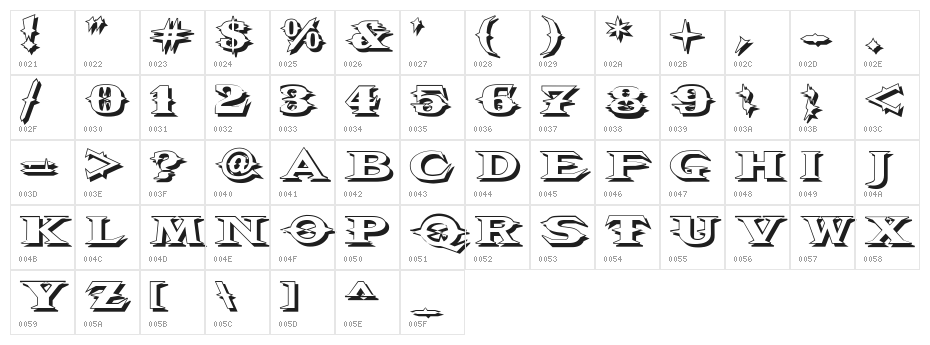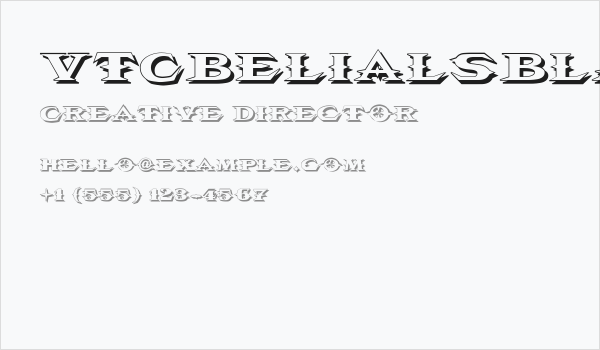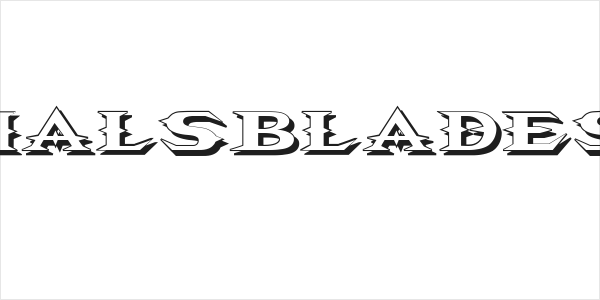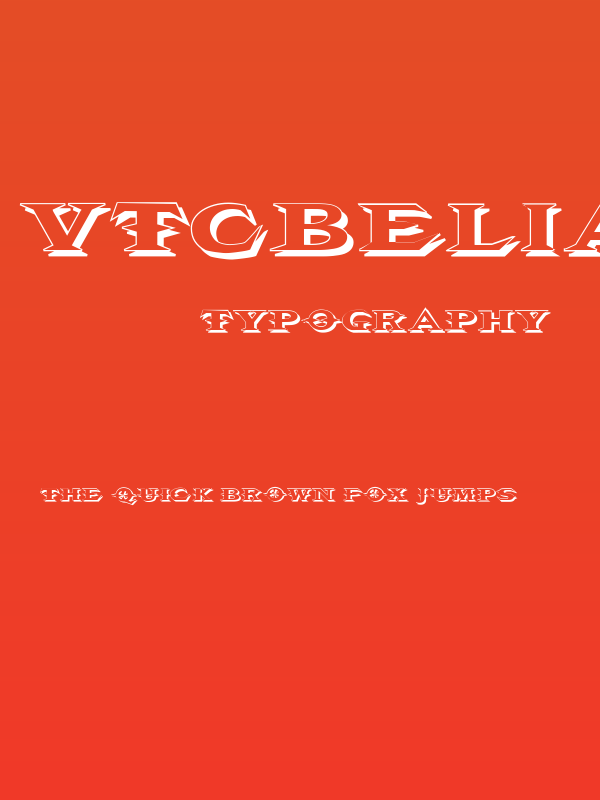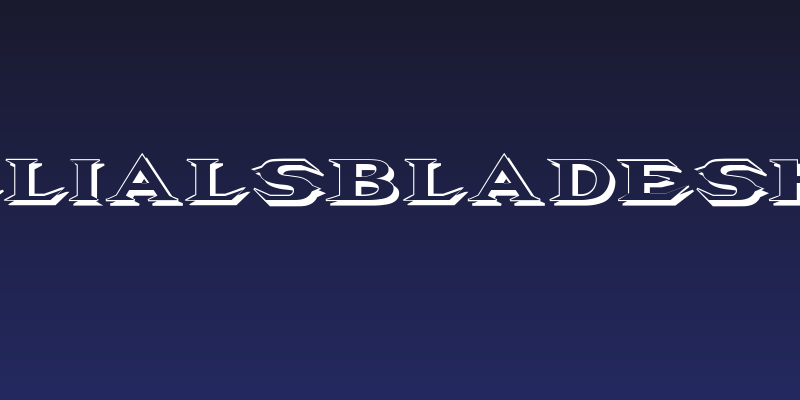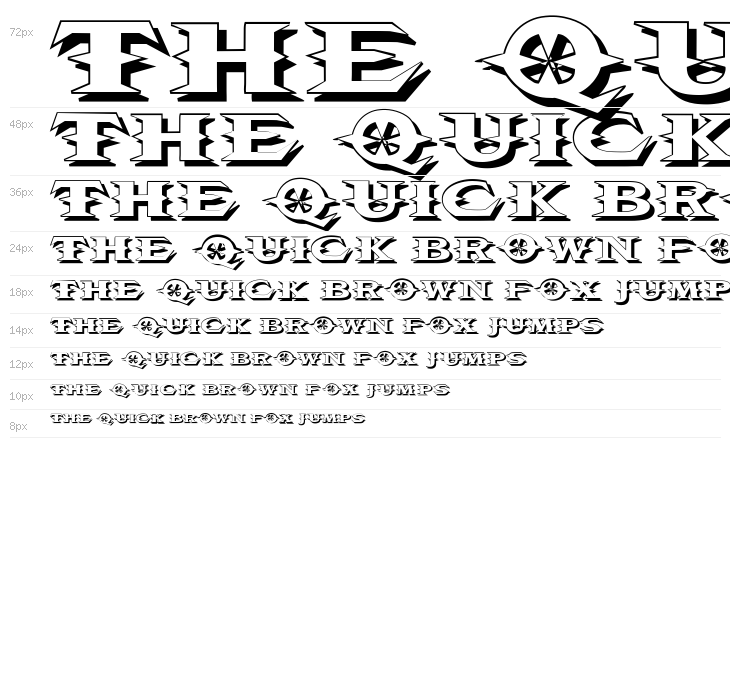
VTCBelialsBladeShadow Font
VTCBelialsBladeShadow Description
This font features a bold and dramatic style with sharp, angular edges and a shadow effect that gives it a three-dimensional appearance. The characters are designed with intricate details, including pointed serifs and unique embellishments that create a striking visual impact. The uppercase and lowercase letters maintain a consistent design theme, while the numbers and special characters complement the overall aesthetic. This font's distinctive look makes it ideal for projects that require a bold and eye-catching typeface.
| Proposed Projects | Ideal for posters, logos, video game titles, and any design requiring a dramatic and bold typeface. |